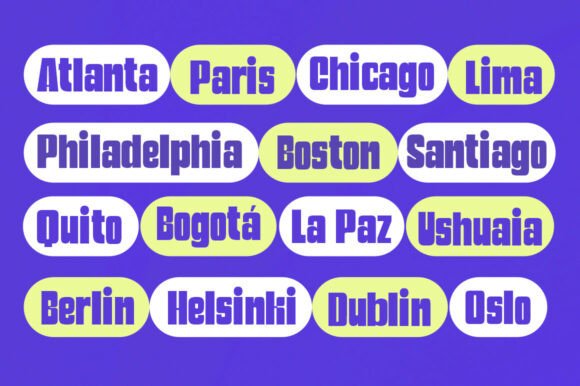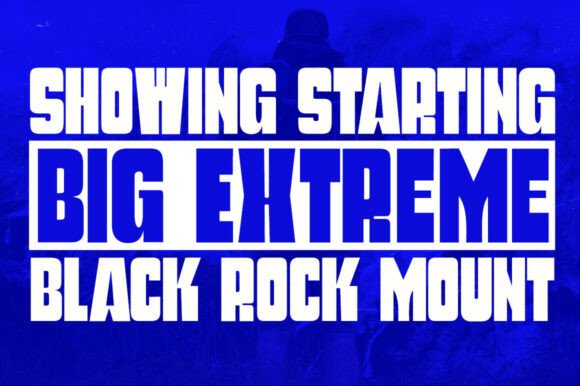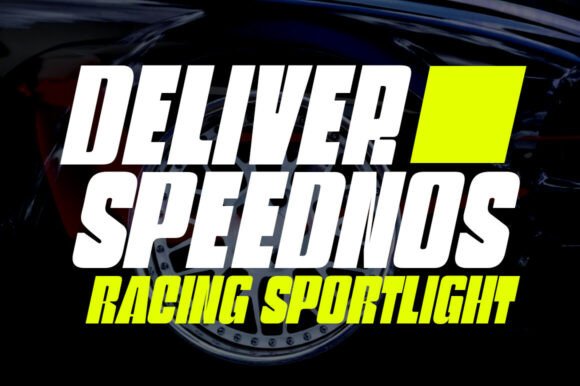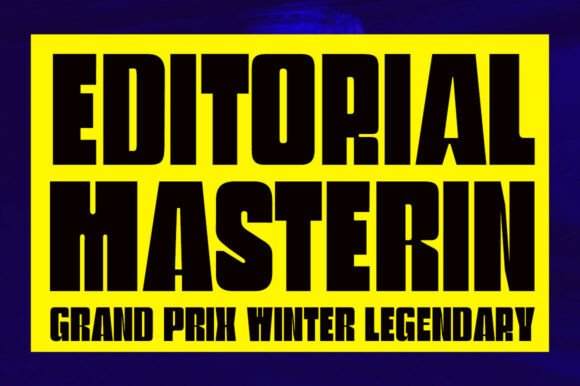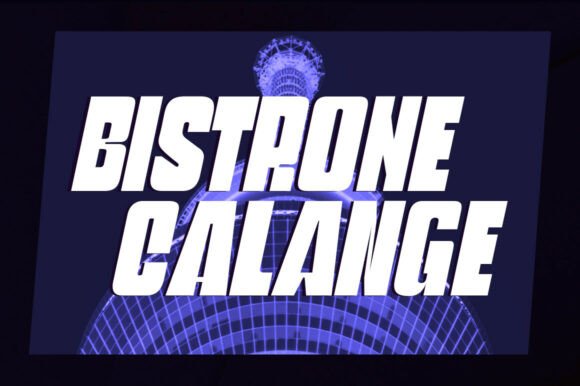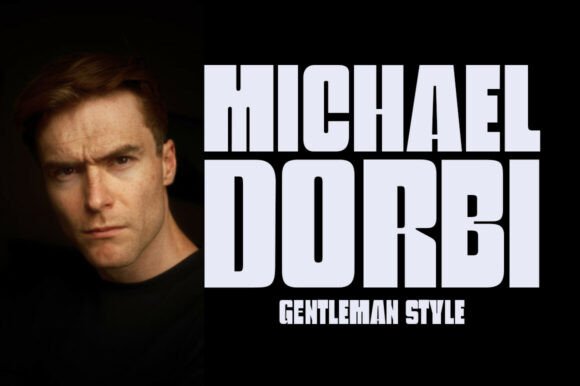
Baskela Font: Elevate Your Designs with a Bold, Ultra-Modern Display Font
In the world of typography, a font can make or break a design. When it comes to creating a lasting impression, designers and crafters need a font that exudes elegance, sophistication, and authority. Introducing Baskela, a bold, ultra-modern display font that embodies the perfect blend of simplicity, elegance, and high-tech charm.
The Essence of Baskela: Simple Condensed Elegance
Baskela is a masterclass in typographic design, boasting a unique blend of massive, tightly packed letterforms with extremely thick vertical stems and minimal negative space. This results in a powerful block-like silhouette that commands attention and exudes confidence. The font’s bold and condensed structure makes it an exceptional choice for designers looking to create a lasting impact.
A Harmonious Balance of Smooth and Sharp Lines
One of the standout features of Baskela is its intriguing contrast between smooth, rounded outer corners and sharp, geometric internal cutouts. This harmonious balance creates a high-tech and sophisticated mechanical feel, perfect for designs that require a touch of futurism and innovation. The font’s unique character definition makes it an excellent choice for cinematic titles, luxury automotive branding, futuristic sports logos, and high-impact urban posters.
Perfect for High-Impact Designs
Baskela is specifically designed for high-impact designs that require a “smart” and authoritative visual presence. Its bold and condensed structure makes it perfect for:
• Cinematic Titles: Add a touch of sophistication and glamour to your movie titles with Baskela’s bold and elegant letterforms.
• Luxury Automotive Branding: Elevate your car brand’s visual identity with Baskela’s sleek and modern design.
• Futuristic Sports Logos: Create a lasting impression with Baskela’s bold and futuristic letterforms, perfect for sports teams and events.
• High-Impact Urban Posters: Make a statement with Baskela’s powerful and authoritative design, ideal for posters and billboards.
Why Choose Baskela?
With Baskela, designers and crafters can expect:
• Unparalleled Elegance: Baskela’s unique blend of smooth and sharp lines creates a sophisticated and elegant design.
• High-Tech Charm: The font’s geometric internal cutouts and smooth outer corners give it a high-tech and mechanical feel.
• Exceptional Versatility: Baskela can be used for a wide range of designs, from cinematic titles to luxury branding.
• Easy to Read: Despite its bold and condensed structure, Baskela remains easy to read, even at smaller sizes.
In conclusion, Baskela is a game-changing display font that offers designers and crafters a unique opportunity to elevate their designs. With its bold and ultra-modern design, Baskela is perfect for high-impact designs that require a “smart” and authoritative visual presence. Whether you’re working on cinematic titles, luxury automotive branding, or high-impact urban posters, Baskela is an exceptional choice that is sure to make a lasting impression.